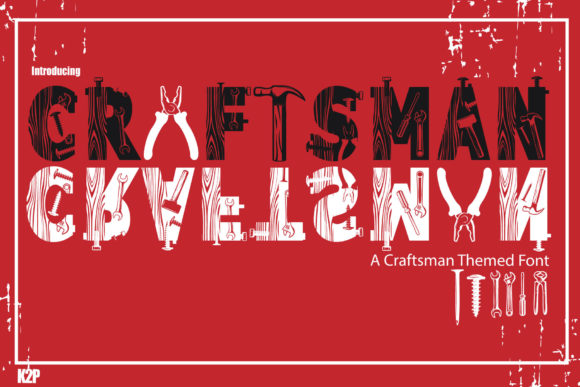
Craftsman Font: The Ultimate Guide to this Cool, Fun, and Bold Decorative Font
In the world of typography, fonts play a crucial role in conveying messages, expressing emotions, and creating visual identities. One such font that has gained significant attention in recent times is the Craftsman Font. This cool, fun, and bold decorative font has become a popular choice among designers, marketers, and artists for various creative projects. In this article, we’ll dive into the world of Craftsman Font, exploring its features, uses, and benefits.
What is Craftsman Font?
Craftsman Font is a decorative font designed to add a touch of personality and style to any creative project. Its unique blend of bold and playful elements makes it perfect for product packaging, branding projects, magazine covers, social media graphics, wedding designs, and more. The font’s versatility and legibility make it an excellent choice for headlines, titles, and short paragraphs of text.
Features of Craftsman Font
- Bold and Playful Design: Craftsman Font boasts a bold and playful design that grabs attention and adds visual interest to any project.
- High Legibility: Despite its decorative nature, Craftsman Font remains highly legible, making it suitable for use in various contexts.
- Versatile: This font can be used for a wide range of creative projects, from product packaging to social media graphics.
- Unique Character Set: Craftsman Font comes with a unique character set, including uppercase and lowercase letters, numbers, and special characters.
Uses of Craftsman Font
Craftsman Font is an incredibly versatile font that can be used in various creative projects. Here are some of the most popular uses of this font:
- Product Packaging: Add a touch of personality to your product packaging with Craftsman Font.
- Branding Projects: Use Craftsman Font to create unique and memorable brand identities.
- Magazine Covers: Craft eye-catching magazine covers with Craftsman Font.
- Social Media Graphics: Create engaging social media graphics with Craftsman Font.
- Wedding Designs: Add a touch of elegance and sophistication to your wedding designs with Craftsman Font.
Benefits of Using Craftsman Font
Using Craftsman Font in your creative projects offers several benefits, including:
- Unique Visual Identity: Craftsman Font helps create a unique visual identity for your brand or project.
- Increased Legibility: The font’s high legibility ensures that your message is conveyed clearly and effectively.
- Emotional Connection: Craftsman Font’s playful and bold design helps create an emotional connection with your audience.
- Versatility: This font can be used in various contexts, making it a valuable addition to your design arsenal.
Tips for Using Craftsman Font
To get the most out of Craftsman Font, follow these tips:
- Use it Sparingly: Use Craftsman Font sparingly to avoid overwhelming your audience.
- Pair it with Other Fonts: Pair Craftsman Font with other fonts to create visual interest and hierarchy.
- Experiment with Colors: Experiment with different colors to find the perfect combination for your project.
- Consider Your Audience: Consider your audience and adjust the font size, style, and color accordingly.
In conclusion, Craftsman Font is a cool, fun, and bold decorative font that’s perfect for adding a touch of personality to your creative projects. Its versatility, legibility, and unique character set make it an excellent choice for various applications, from product packaging to social media graphics. By following the tips outlined in this article, you can make the most of Craftsman Font and create stunning designs that capture your audience’s attention.